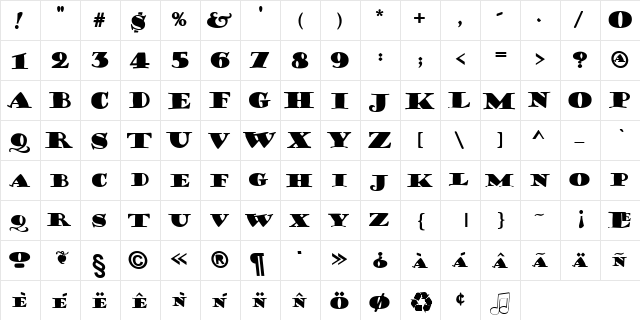
PorterLilKaps Medium
Design Context for PorterLilKaps Typeface
PorterLilKaps is a composed and adaptable typeface that performs quietly and consistently across a wide range of design contexts.